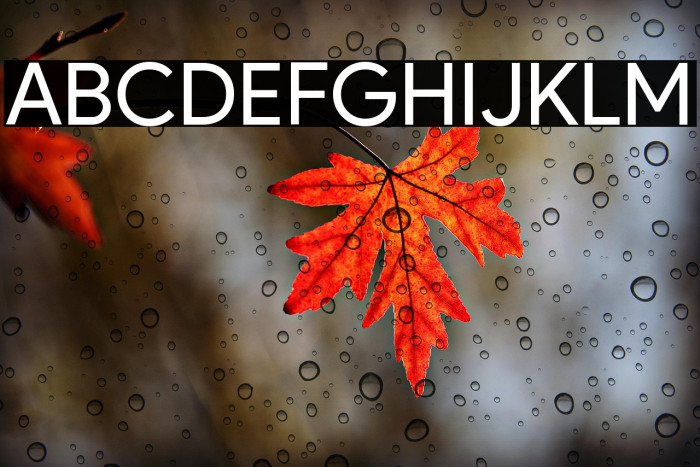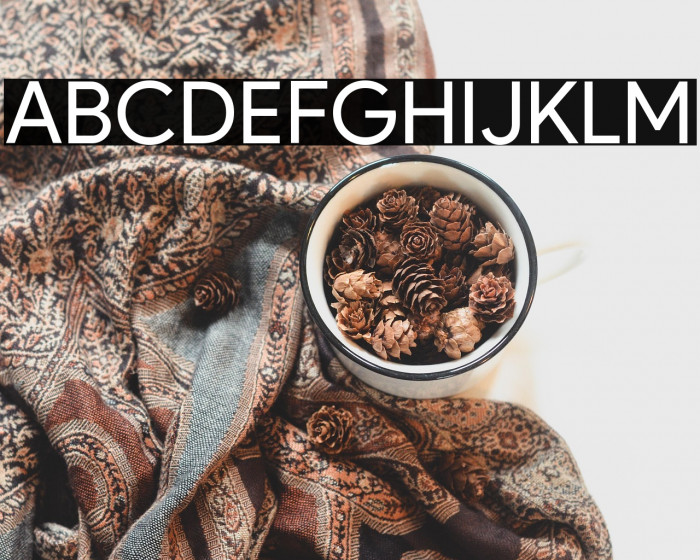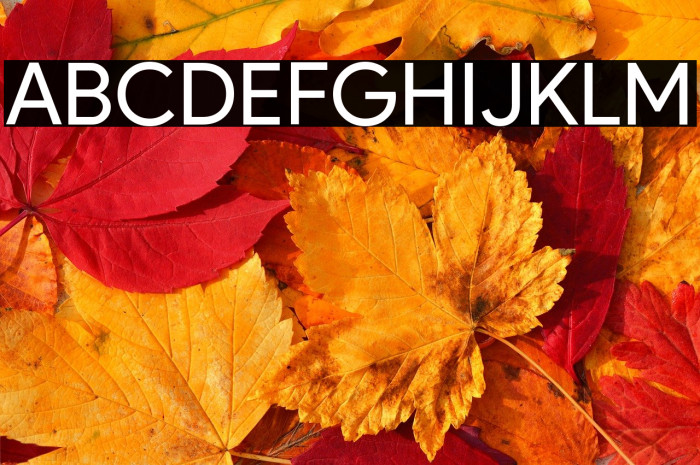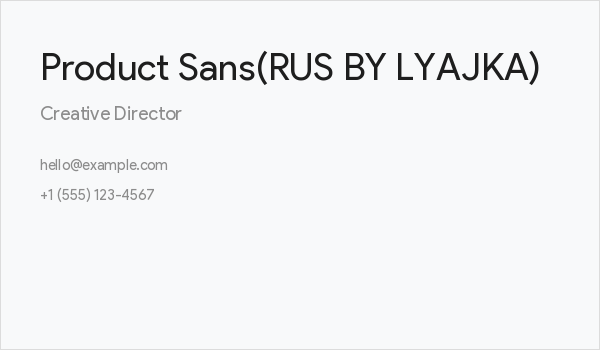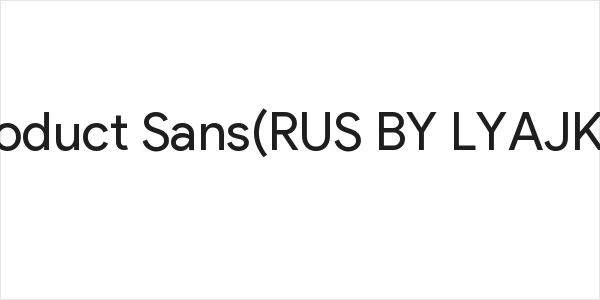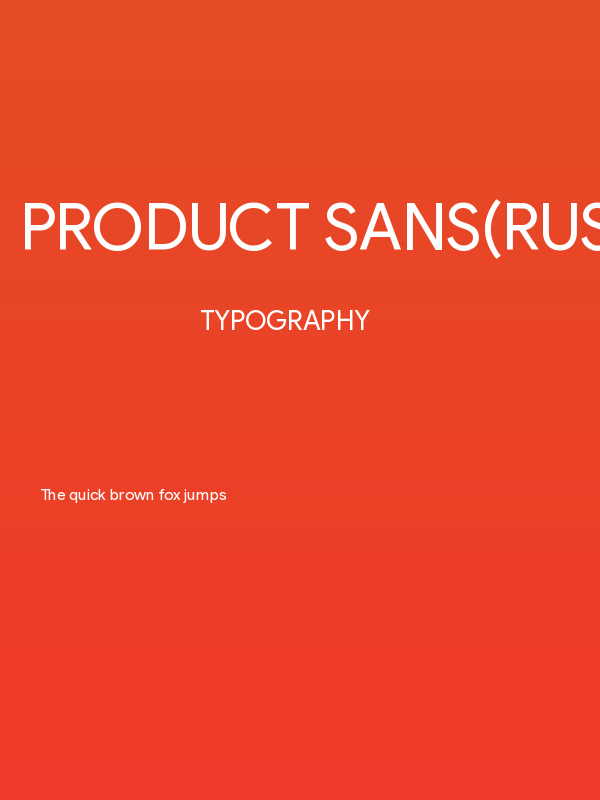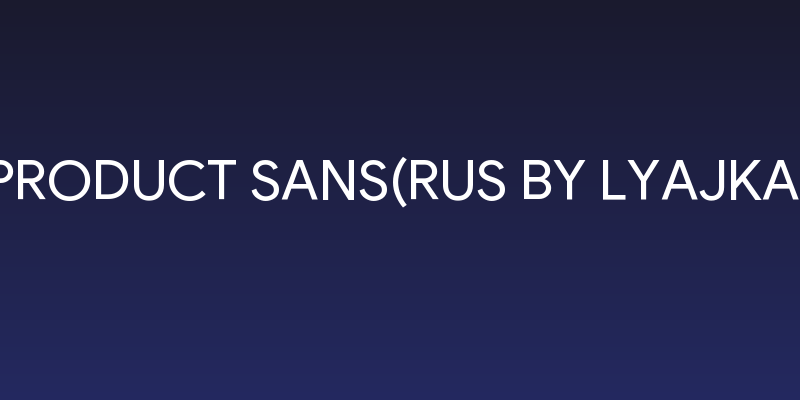
Product Sans(RUS BY LYAJKA) Font
Product Sans(RUS BY LYAJKA) Description
This font features a clean and modern sans-serif style with a geometric structure. The characters are well-balanced and have a uniform stroke width, providing a harmonious and professional appearance. The uppercase letters are bold and assertive, while the lowercase letters maintain a friendly and approachable look. The numerals are clear and easy to read, making them suitable for various applications. Special characters are designed with the same attention to detail, ensuring consistency across all glyphs. This font is versatile and can be used in both digital and print media.